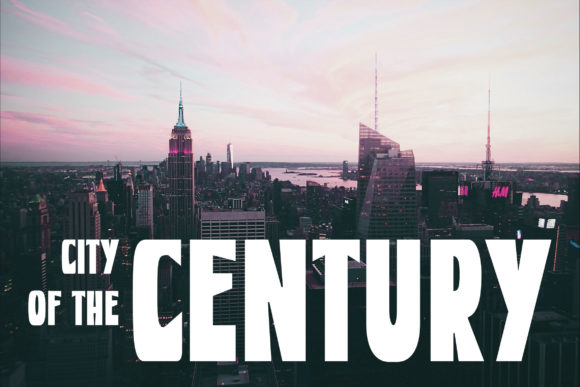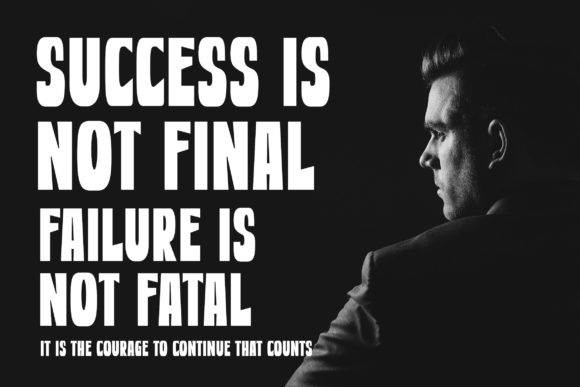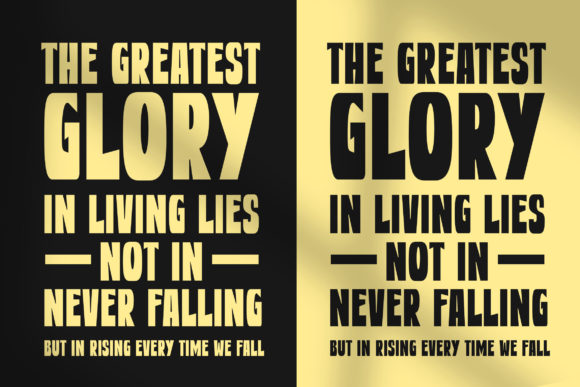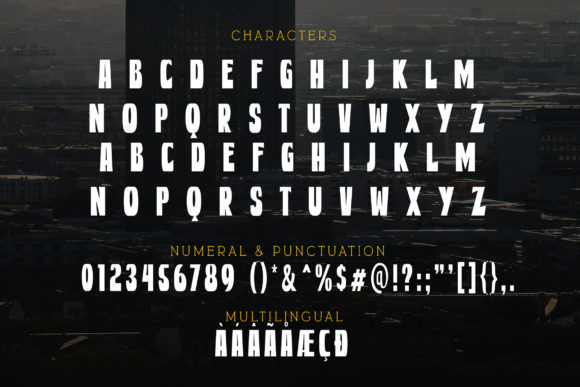
Introducing Biggest Country Font: The Ultimate Display Font for Bold Designs
Are you tired of using the same old fonts for your designs? Look no further! Biggest Country Font is here to take your creative projects to the next level. This cool, bold, and assertive display font is perfect for designers and crafters who want to make a statement. In this article, we’ll dive into the features and benefits of Biggest Country Font, and explore how it can elevate your designs.
What is Biggest Country Font?
Biggest Country Font is a display font designed to make a bold impact. Its unique and rugged style is inspired by the great outdoors, making it perfect for designs that require a strong and adventurous feel. This font is not just a collection of letters; it’s a statement piece that can transform your designs into eye-catching masterpieces.
Key Features of Biggest Country Font
- Bold and Assertive: Biggest Country Font is designed to stand out from the crowd. Its bold and assertive style ensures that your designs grab attention and leave a lasting impression.
- Cool and Edgy: This font has a cool, edgy vibe that’s perfect for designs that require a bit of attitude. Whether you’re designing for t-shirts, sportswear, or logos, Biggest Country Font has got you covered.
- Highly Versatile: This font is suitable for a wide range of designs, including t-shirts, sportswear, logos, advertisements, clothing, and more. Its versatility makes it a valuable addition to any designer’s toolkit.
- Easily Readable: Despite its bold style, Biggest Country Font is surprisingly easy to read. This makes it perfect for designs that require a clear and concise message.
Use Cases for Biggest Country Font
So, how can you use Biggest Country Font in your designs? Here are some ideas to get you started:
- T-Shirts and Apparel: Create eye-catching t-shirts, hoodies, and other apparel with Biggest Country Font. Its bold style ensures that your designs stand out from the crowd.
- Logos and Branding: Use Biggest Country Font to create bold and memorable logos for your clients. Its unique style ensures that your designs are instantly recognizable.
- Advertisements: Make your advertisements stand out with Biggest Country Font. Its assertive style ensures that your message gets noticed.
- Sportswear and Fitness: Biggest Country Font is perfect for sportswear and fitness designs. Its cool and edgy vibe ensures that your designs appeal to the active and adventurous.
Benefits of Using Biggest Country Font
So, why should you choose Biggest Country Font for your designs? Here are some benefits to consider:
- Unique Style: Biggest Country Font offers a unique and distinctive style that’s sure to set your designs apart.
- Increased Visibility: Its bold and assertive style ensures that your designs grab attention and increase visibility.
- Flexibility: This font is highly versatile and can be used in a wide range of designs.
- Easy to Read: Despite its bold style, Biggest Country Font is surprisingly easy to read.
In conclusion, Biggest Country Font is a game-changer for designers and crafters who want to create bold and eye-catching designs. Its unique style, versatility, and ease of use make it a valuable addition to any designer’s toolkit. Whether you’re designing for t-shirts, logos, advertisements, or sportswear, Biggest Country Font is the perfect choice. So why wait? Download Biggest Country Font today and take your designs to the next level!